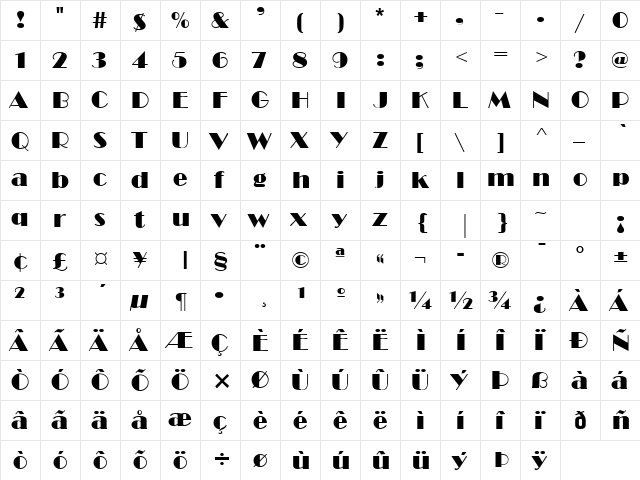
Ritz Normal
Design Context for Ritz Typeface
Ritz is a composed and adaptable typeface that performs quietly and consistently across a wide range of design contexts.